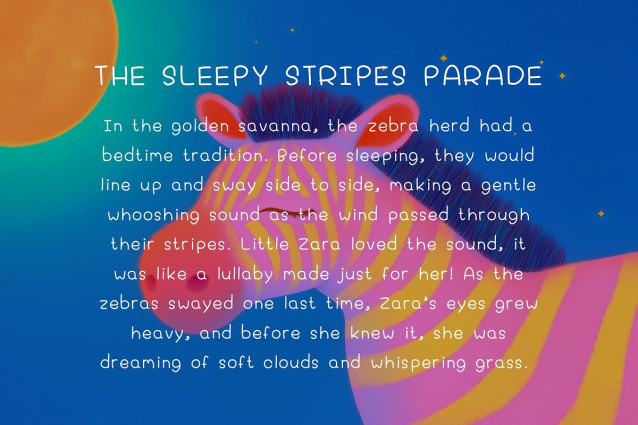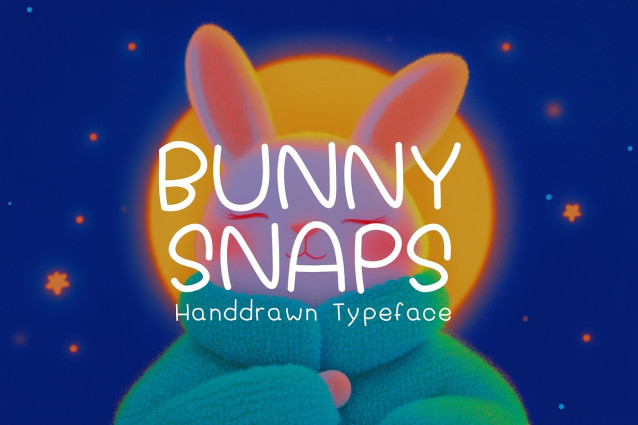
Bunny Snaps Font
Bunny Snaps Font a playful, bubbly, and effortlessly cute typeface! With its soft, hand-drawn charm, this font is perfect for adding a warm and friendly touch to any project.